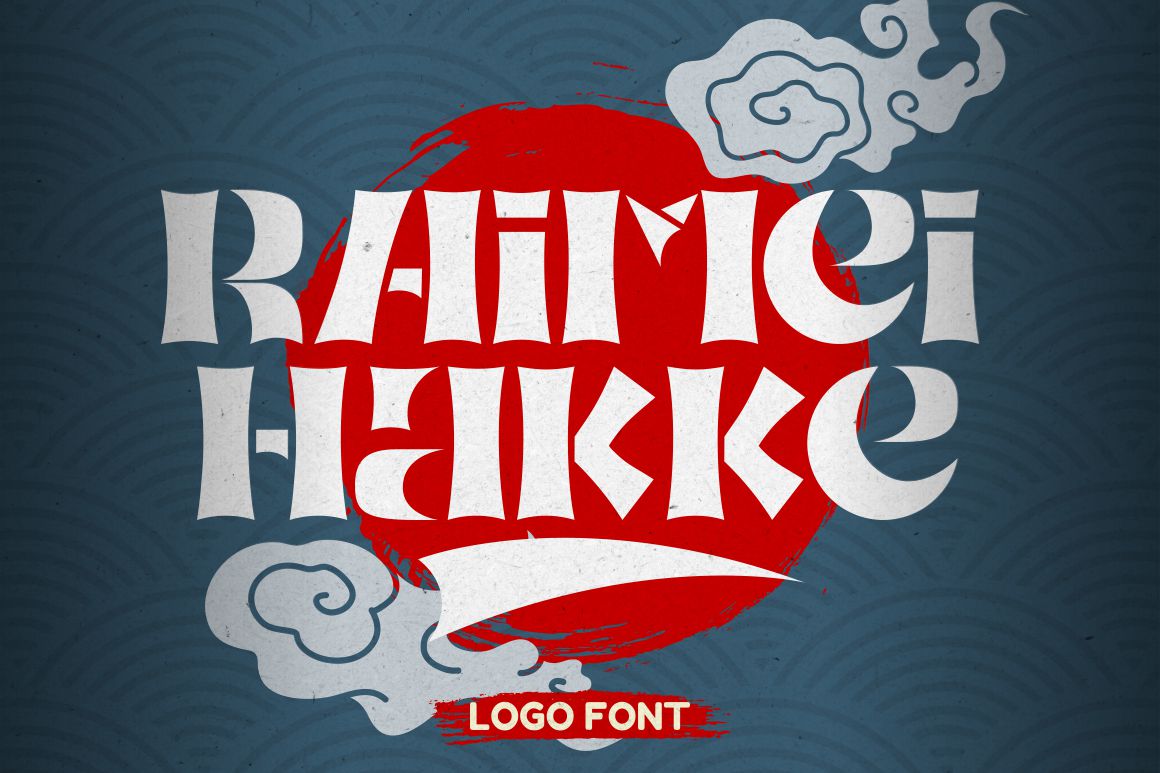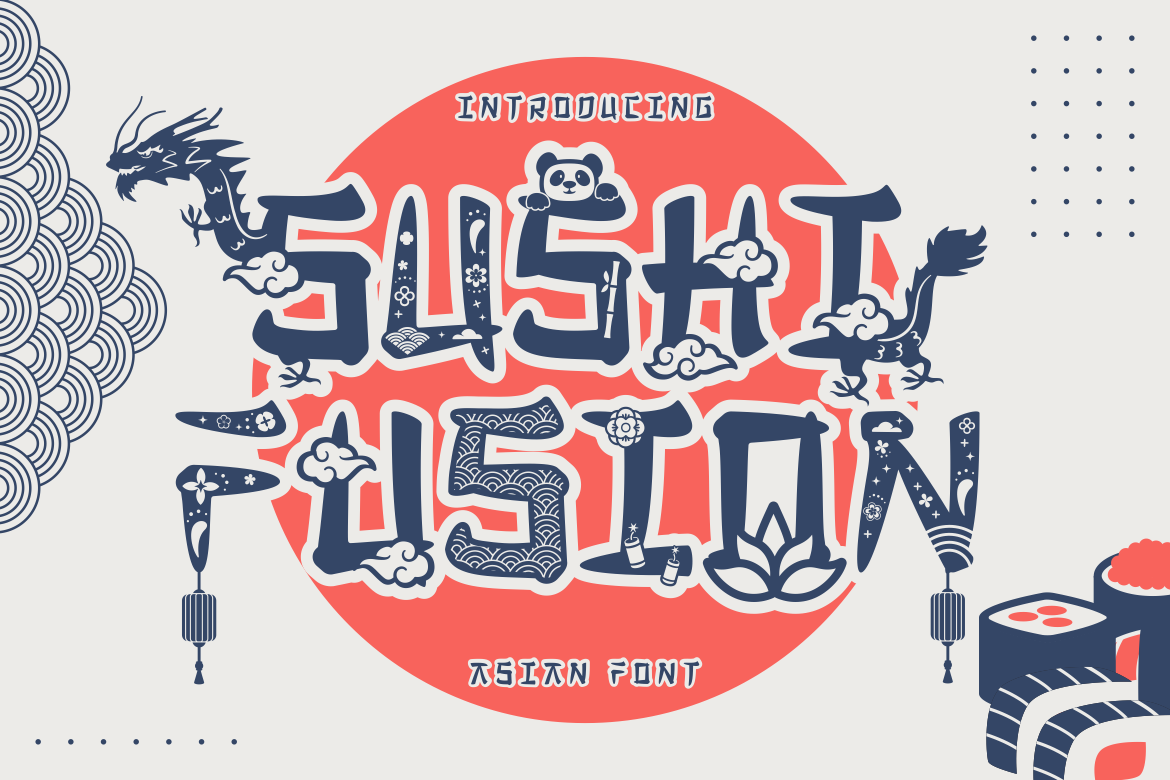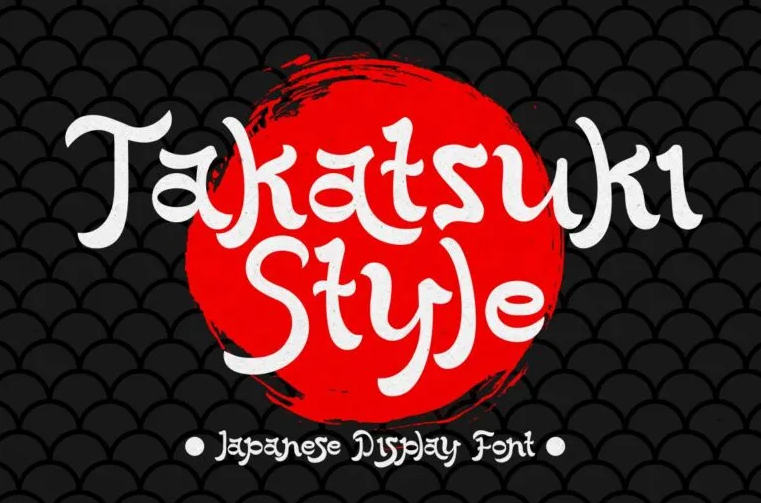
Best Japanese Style Fonts: Discover 7 Unique Inspired by Japan
Japanese Style Fonts for Authentic Eastern Aesthetics
Typography plays a pivotal role in conveying cultural nuances and aesthetic values. When it comes to capturing the essence of Japanese design, selecting the right font can make all the difference. Whether you’re working on branding, packaging, or digital content, Japanese style fonts offer a unique blend of tradition and modernity. In this article, we explore seven exceptional Japanese-themed fonts from PutraCetol Studio that can elevate your design projects.
1. Japanese Neotokyo – Japanese Style Font
Japanese Neotokyo is a bold display font that fuses traditional Japanese elements with a futuristic twist. Its geometric forms and sharp angles evoke the neon-lit streets of Tokyo, making it ideal for projects that aim to capture a cyberpunk or modern Asian aesthetic. This font is perfect for branding, restaurant menus, packaging, signage, posters, merchandise, and event promotions—especially those themed around Japanese culture, sushi bars, anime projects, or Neo-Asia narratives.
2. Japanese Emperor – Japan Style Display Font
Inspired by traditional Japanese characters, Japanese Emperor offers a display font that is both authentic and versatile. Its bold strokes and unique shapes make it suitable for a variety of applications, including logos, wedding invitations, branding, landing pages, apparel, posters, headlines, greeting cards, invitation cards, social media, crafting, and quotes.
3. Takatsuki Style – Japanese Display Font
Takatsuki Style combines ethnic and cultural elements in each of its glyphs, offering a font that resonates with Japanese cultural themes. It’s particularly suitable for Japanese restaurants, clothing brands, arts, and businesses related to Japanese culture. The font’s unique design makes it a great choice for logos, branding, and other creative projects.
4. Fujisan – Display Font
Fujisan Display Font shines across various applications—from creating impactful logos that demand attention to designing exquisite invitations that evoke cultural elegance. Its robust form makes it ideal for packaging and poster designs where clarity meets style, while its unique appeal adds character to book titles and magazine layouts. Whether enhancing your business identity or adding a touch of class to greeting cards and stickers, Fujisan is your go-to font for making a statement.
5. Nebula Avenue – Duo Techno Brush Font
Nebula Avenue is a captivating duo font that fuses the futuristic vibe of techno with the bold aesthetics of a brush script. This unique combination makes it perfect for designs that demand both modernity and artistic flair. Inspired by sci-fi and Japanese calligraphy, this font exudes an avant-garde style that’s ideal for any project looking to make a striking impact.
6. Raimei Hakke – Japan Style Logo Font
Raimei Hakke is a font inspired by Japanese style and is one of the few fonts with shapes and styles that closely resemble Japanese characters. This font is easy to read and can be applied to all media, making it suitable for logos, wedding invitations, branding, landing pages, apparel, posters, headlines, greeting cards, invitation cards, social media, crafting, quotes, and more.
7. Sushi Fusion – Asian Theme Font
Sushi Fusion is inspired by the authentic brush strokes found in traditional Asian calligraphy, giving it a quirky yet elegant aesthetic. This display font showcases a fusion of cultural elements, making it an eclectic yet harmonious typeface perfect for various applications. It’s ideal for projects that aim to reflect the rich culture and artistry of Asia.
Incorporating Japanese style fonts into your design projects can add a layer of cultural depth and aesthetic appeal. The seven fonts highlighted above offer a range of styles—from traditional to futuristic—allowing you to choose the perfect typeface that aligns with your project’s vision. By selecting fonts that resonate with Japanese aesthetics, you can create designs that are both visually striking and culturally enriched